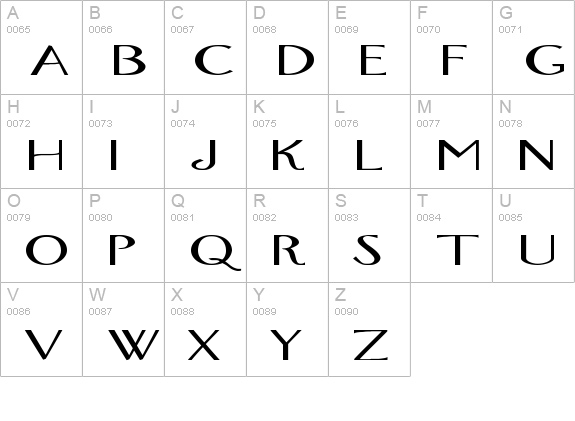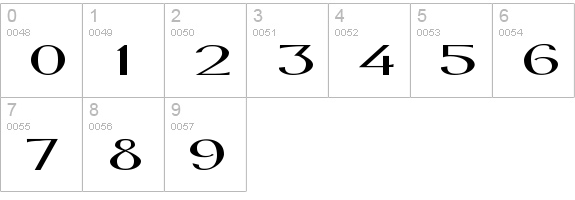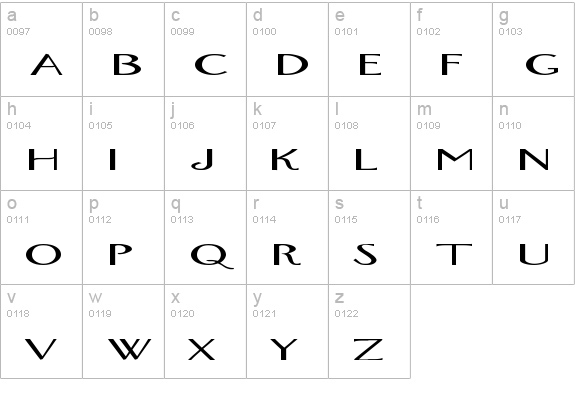
Orlando_Bold Font Details
Orlando_Bold is a modern and stylish font that exudes confidence and sophistication. With its bold and commanding presence, this font is perfect for making a statement in your designs. The strong lines and sharp angles of Orlando_Bold make it ideal for headlines, titles, and branding materials that demand attention. What's even better is that Orlando_Bold is available for free download at FontsMarket.com. So you can easily add this striking font to your collection without any cost. Elevate your projects with Orlando_Bold and let your creativity shine with this versatile and impactful typeface.